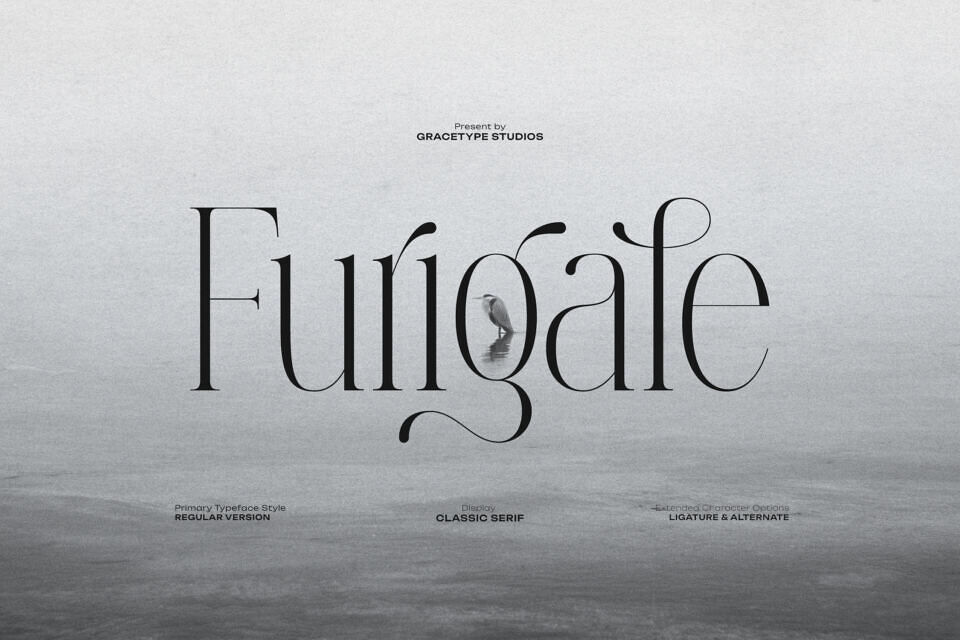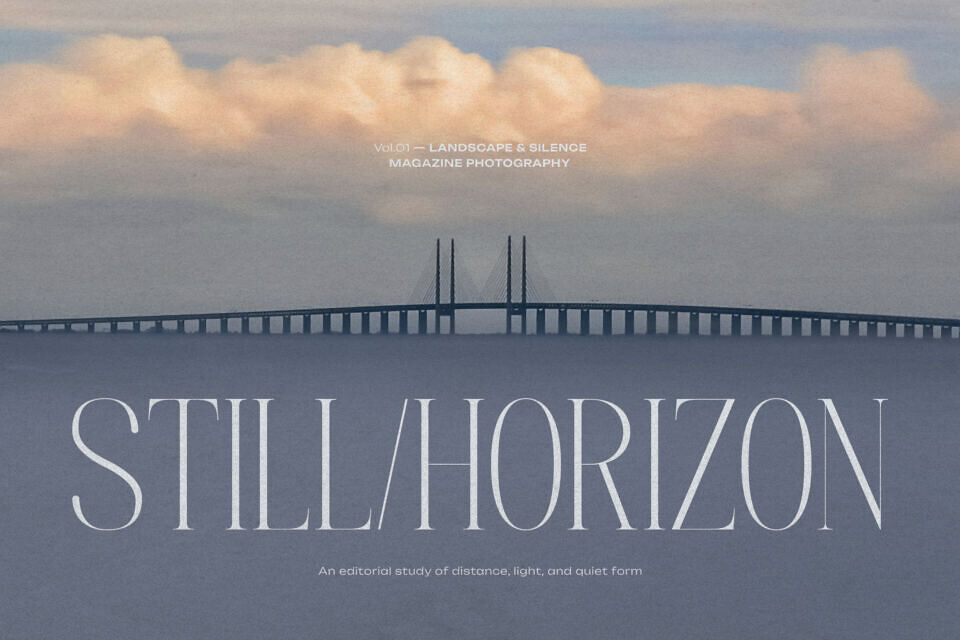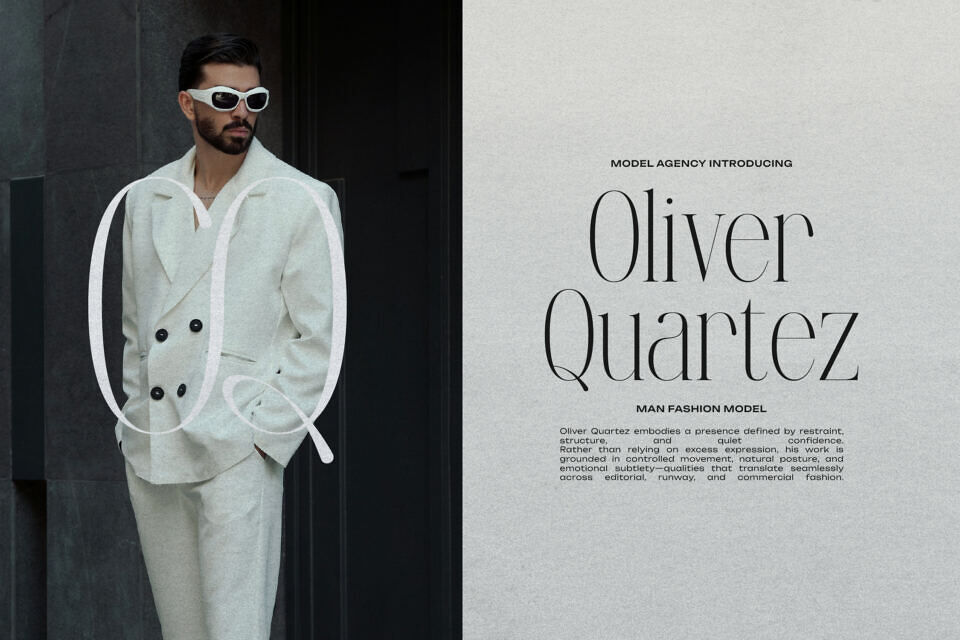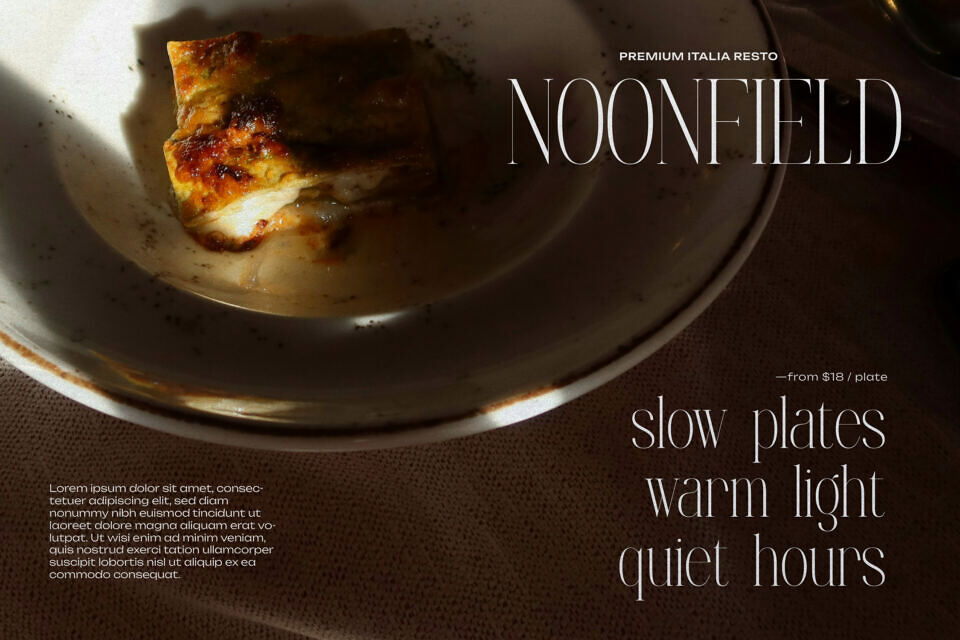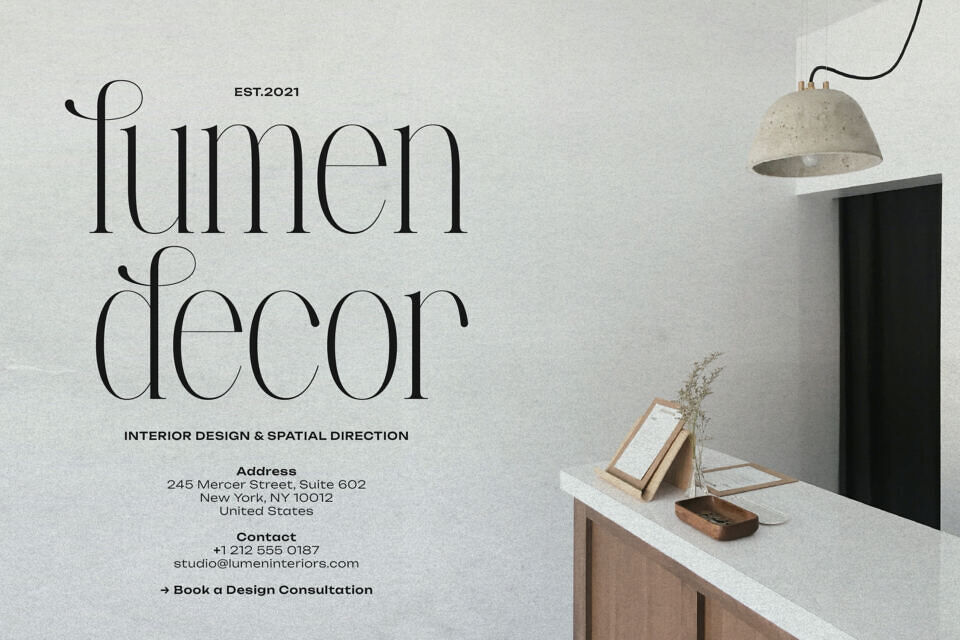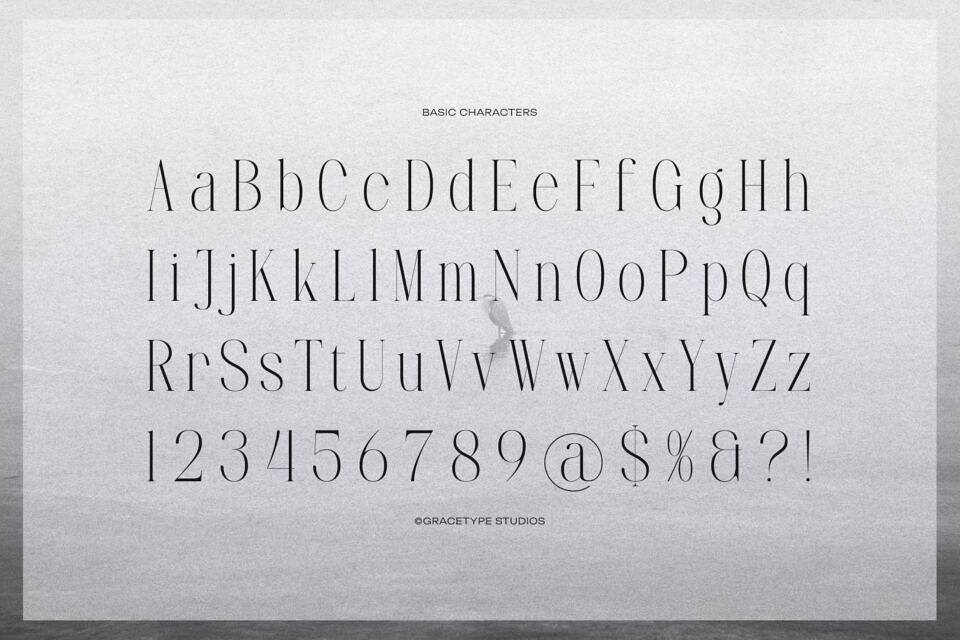
Furigale Font
Furigale from Gracetypestudio is a “display powerhouse” that redefines the boundaries of modern serif design. Featuring extreme height, elongated terminals, and “dramatic swashes,” this typeface is built for high-fashion editorial and luxury branding.
The Furigale typeface is perfect for mastheads, luxury perfume labels, and avant-garde posters where standard typography feels too safe. Use its soaring ligatures and alternates to create a custom logo that feels “hand-crafted for the runway”.